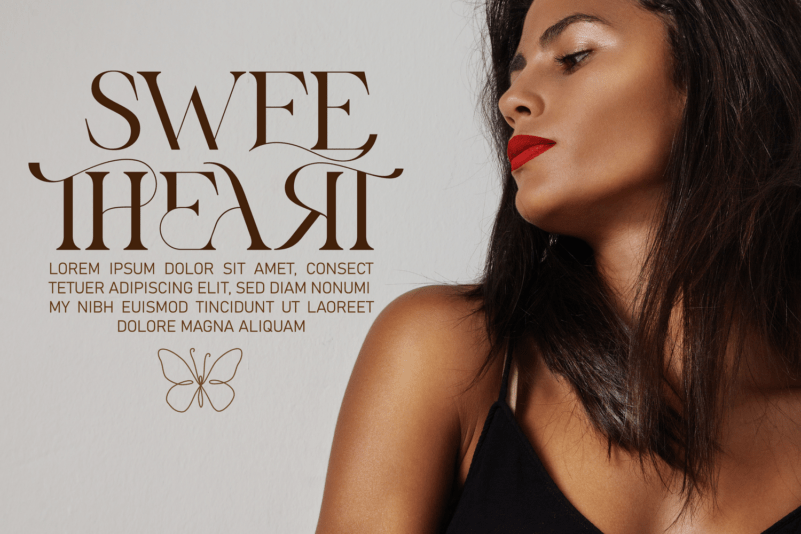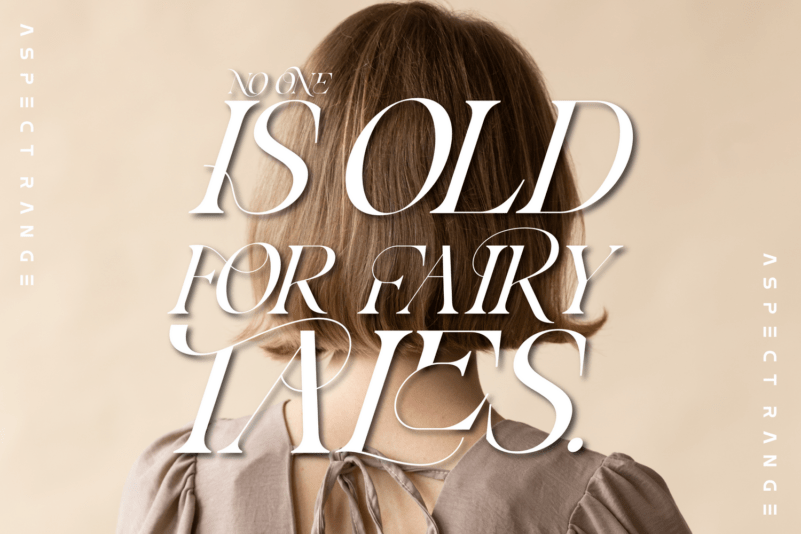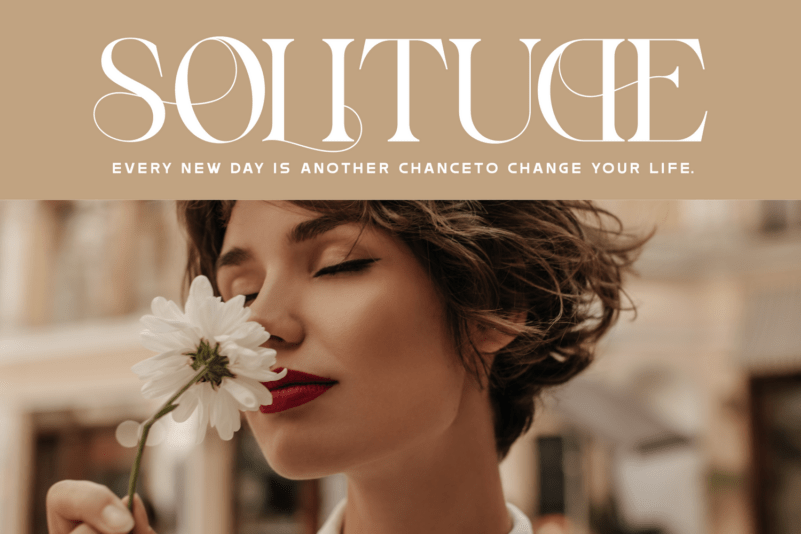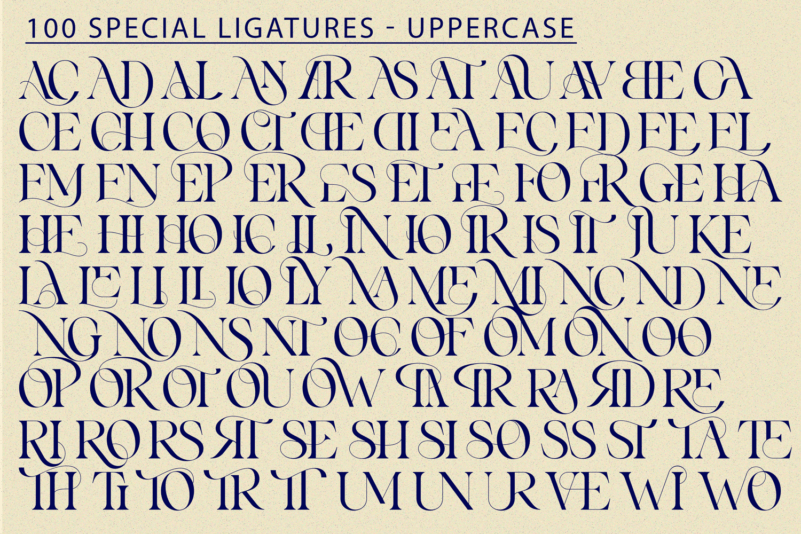
Aspect Range Font
Aspect Range Font is a serif modern and classic typeface that has own unique style & modern look. The font has an elegant, delicate and luxurious character. Very lucky for those of you who can have it. This font can be used to create wedding invitations, presentations, web, magazines, covers, and various other designs.
Aspect Range was built with OpenType features and includes 200 ligatures, alternate, numbers, punctuation, and it also supports other languages.
AC AD AL AN AR AS AT AU AV BE CA CE CH CO CT DE DI EA EC ED EE EL EM EN EP ER ES ET FE FO FR GE HA HE HI HO IE IC IL IN IO IR IS IT JU KE LA LE LI LL LO LY MA ME MI NC ND NE NG NO NT NS OC OF OM ON OO OP OR OT OU OW PA PR RA RD RE RI RO RS RT SE SH SI SO SS ST TA TE TH TI TO TR TT UM UN UR VE WI WO
ac ad al an ar as at au av be ca ce ch co ct de di ea ec ed ee el em en ep er es et fe fo fr ge ha he hi ho ie ic il in io ir is it ju ke la le li ll lo ly ma me mi nc nd ne ng no nt ns oc of om on oo op or ot ou ow pa pr ra rd re ri ro rs rt se sh si so ss st ta te th ti to tr tt um un ur ve wi wo